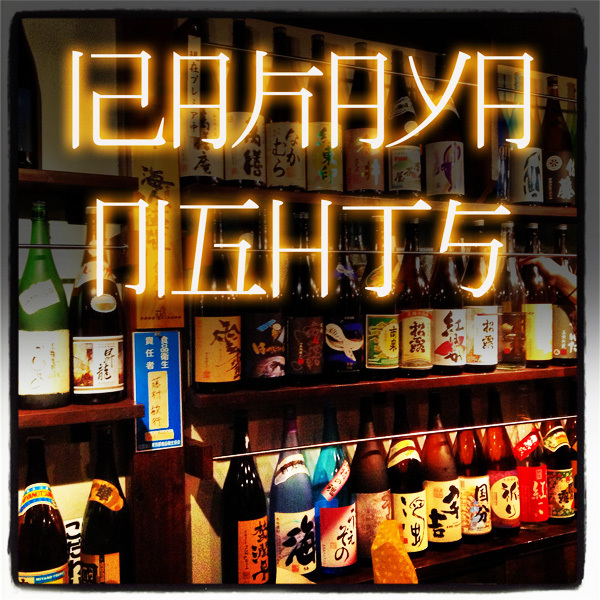
Romaji Mincho by Adrian Candela is a free Japanese-inspired display font with tall, narrow letters and crisp wedge-shaped stroke endings. Its open construction and changing line weight recall Japanese Mincho forms through a restrained, distinctly angular Latin alphabet.
Woodblock-style illustration and brush motifs make natural companions for its spare silhouette. This connection suits cultural event posters, restaurant packaging, editorial covers, and game graphics centered on Japanese history, travel, or folklore.
Romaji Mincho
Adrian Candela
Romaji Mincho is a font by Adrian Candela, designed by Adrian Candela in 2013.